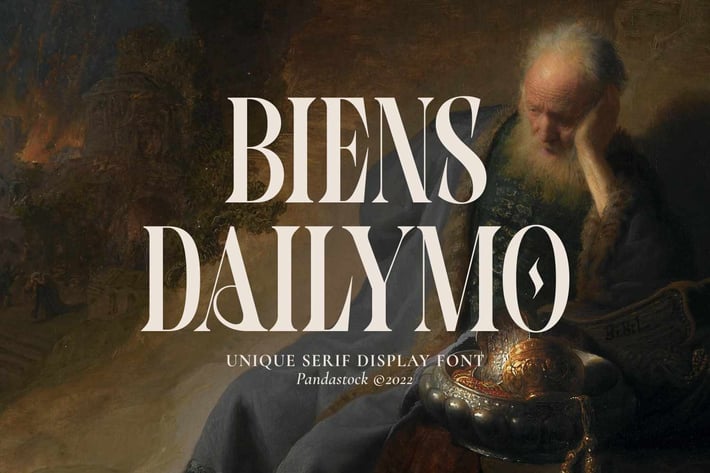
Biens Dailymo - Modern Serif Typeface
Biens Dailymo is modern serif typeface with visual elegance, smooth curves and beautiful ligatures clear, making your work look true and attractive.